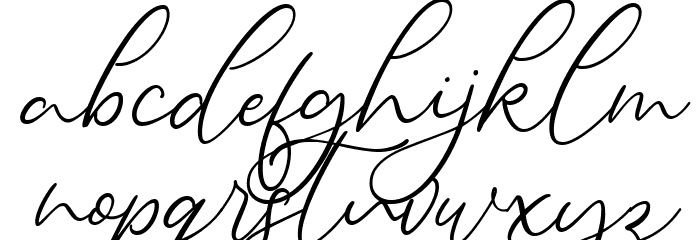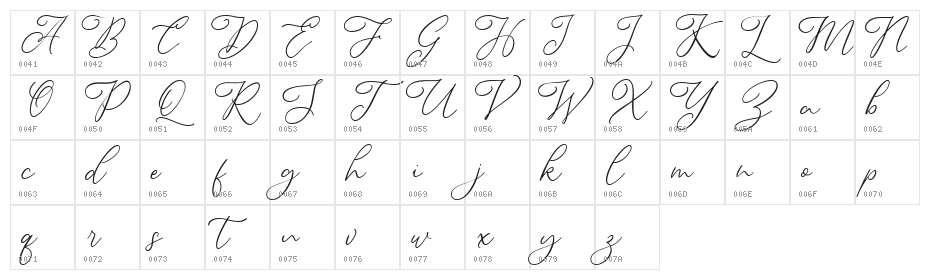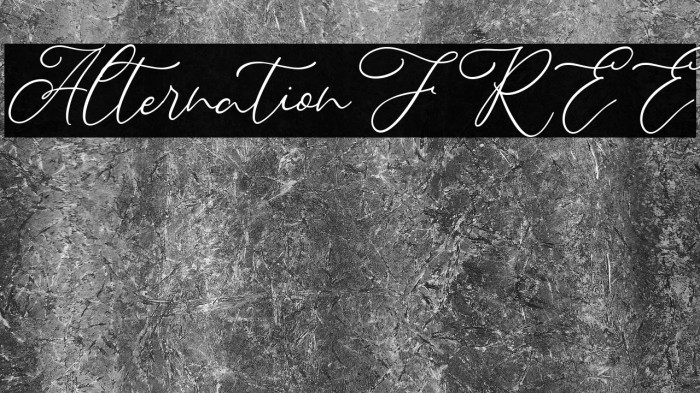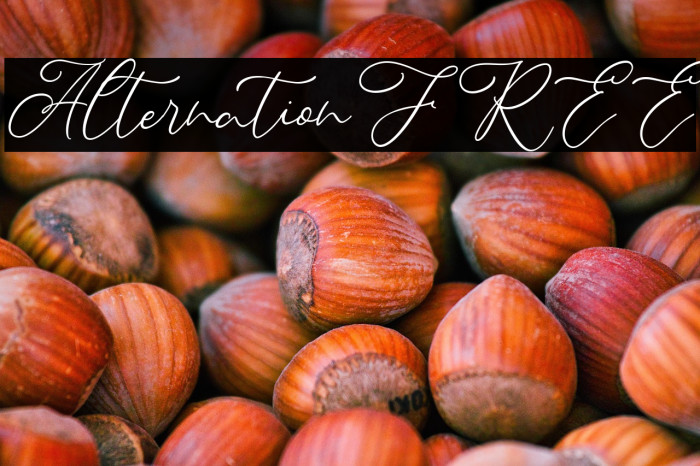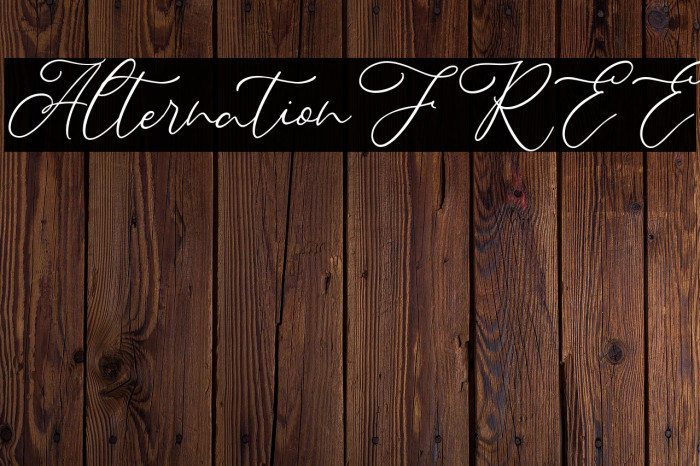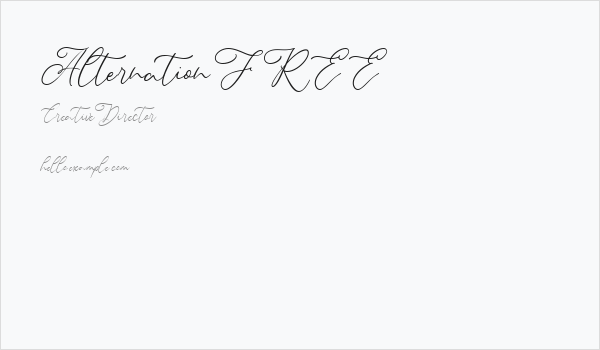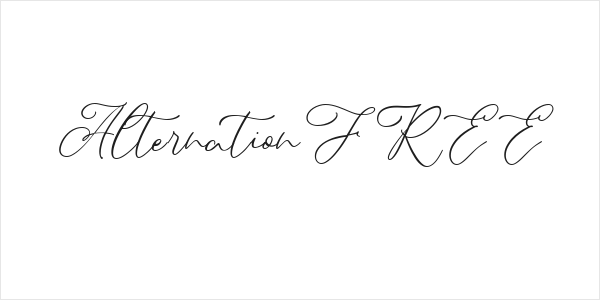
Alternation FREE Font
This elegant script font features a flowing, cursive style with a sophisticated flair. The uppercase letters are delicately crafted with intricate loops and swirls, giving them a graceful appearance. The lowercase letters maintain a consistent flow, with smooth connections between characters, enhancing readability while preserving the artistic touch. The font's design is reminiscent of classic calligraphy, yet it maintains a modern sensibility, making it versatile for various design applications. The characters are evenly spaced, ensuring a balanced look across text. This font is ideal for projects that require a touch of elegance and sophistication, such as wedding invitations, branding, and high-end product packaging.
An elegant script font with flowing, cursive letters and intricate loops.
- Proposed Projects: Wedding invitations, luxury branding, elegant product packaging, and personal stationery.
- Overall Style: Classic
- Use Case: Logos, Invitations, Branding